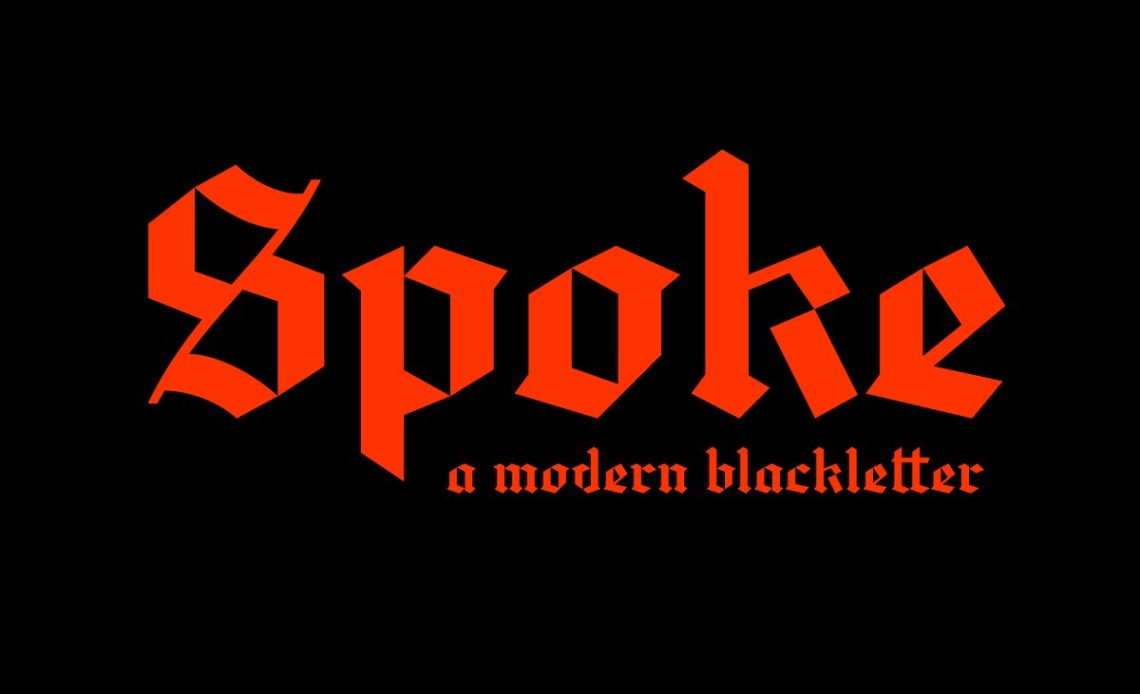
Download Spoke – Blackletter Typeface for free! Created by Graphicado and published by Shmuel Farris, this blackletter font family is perfect for adding a unique touch to your designs.